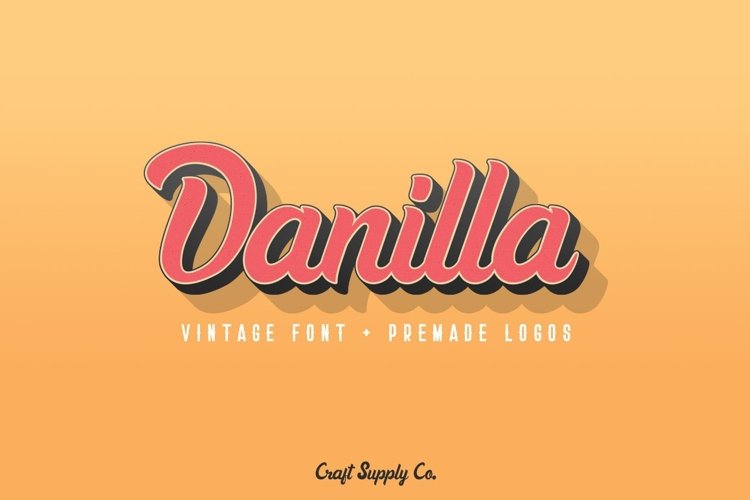
Introducing New Font : Danilla + Premade Logos
Danilla is suitable for Logo, greeting cards, quotes, posters, branding, name card, stationary, design title, blog header, art quote, typography art, modern envelope lettering or book design.
Danilla also suitable for happening style like handdrawn design or watercolor design theme, craft design, any DIY project, book title, wedding font, pop vintage design, or any purpose to make our art/design project look pretty and trendy.